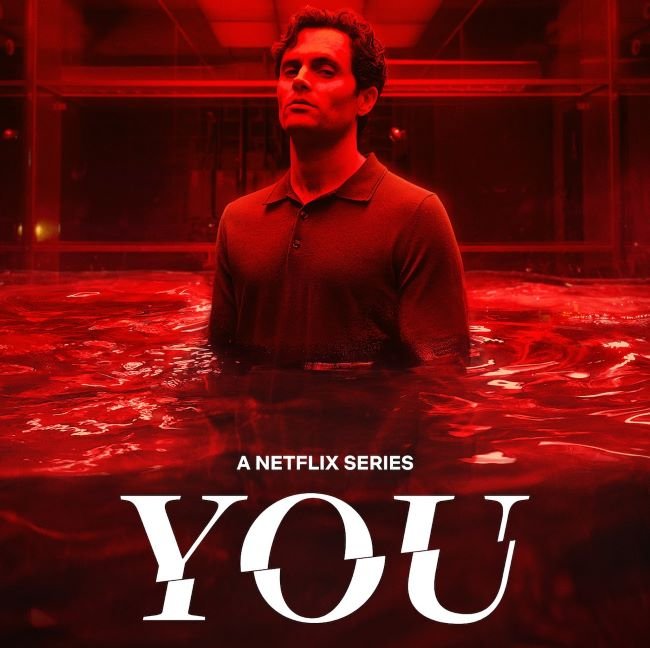
You font uses Didot — the high-contrast French neoclassical serif designed in the late eighteenth century by Firmin Didot, later digitised and refined into the contemporary typeface bearing his name — and the choice for Netflix’s 2018 psychological thriller series about a charming, intelligent, and thoroughly dangerous stalker is a typographic act of seduction: Didot is the typeface of fashion magazines, literary fiction, and expensive perfume advertising, its hairline strokes and sharp serifs communicating taste, sophistication, and the kind of refinement associated with people who read first editions and make good conversation at dinner. The freely available You Font channels this dangerously elegant high-contrast serif register.